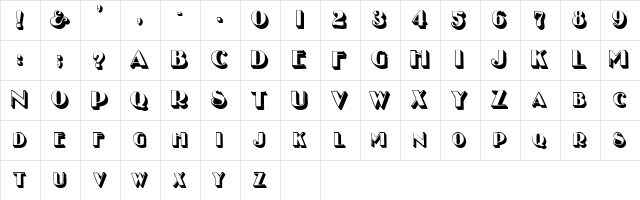
DuxburyShadowSCapsSSK Regular Font Preview
DuxburyShadowSCapsSSK Regular
Design Context for DuxburyShadowSCapsSSK Typeface
DuxburyShadowSCapsSSK brings ornamental detail and strong personality to headlines and identities, where visual impact matters more than quiet functionality.
Font Pairing: Pair with a clean neutral sans-serif for body copy to let DuxburyShadowSCapsSSK's character lead without overwhelming the composition.
Pro Tip: Treat DuxburyShadowSCapsSSK as the centrepiece of your typographic hierarchy. One strong heading set in a decorative face can carry an entire layout.